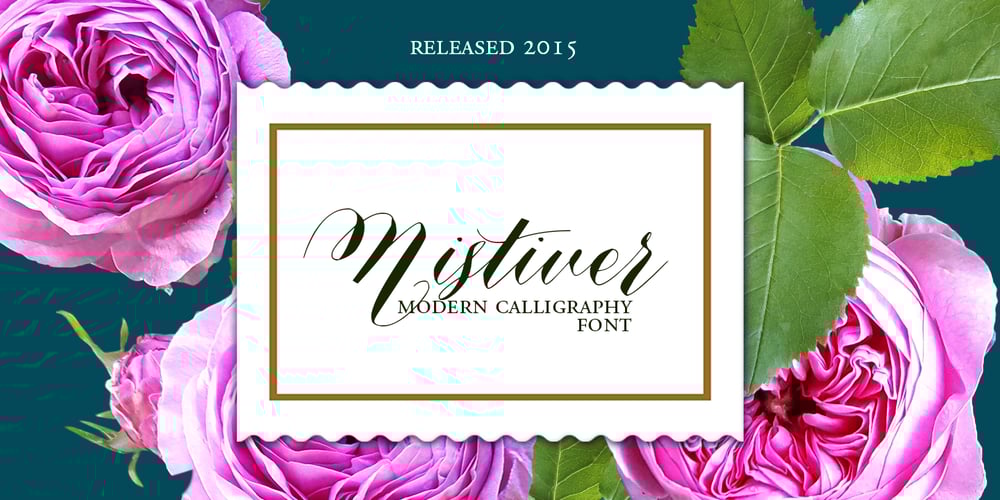
Nistiver Font Family was designed by Aga Silva and published by Aga Silva. Nistiver contains 2 styles and family package options. This font works beautiful for headers and signature looks. There are plenty of alternate letters to fine tune your creations. If required – there is an extra number of initial/end swashes which give that beautiful flowy look to your wording. Also please note that some of the short swashes if placed together make beautiful ornaments as well. Nistiver can write in other languages if such is your demand 🙂